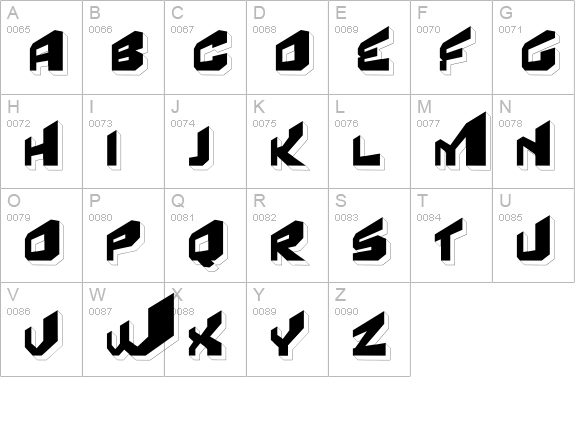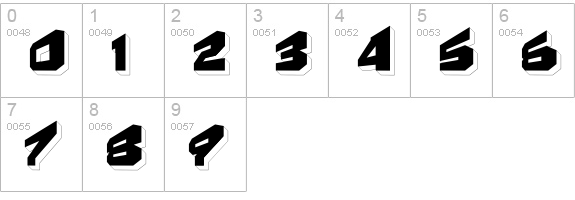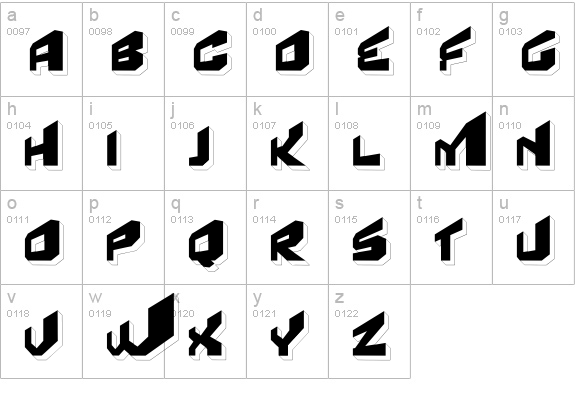
Fear Factor '3D' Font Details
Introducing Fear Factor '3D' font, a bold and dynamic typeface that will make your designs stand out from the crowd. This 3D font exudes a sense of fearlessness and excitement, perfect for projects that require a touch of edginess. The Fear Factor '3D' font is versatile and can be used in a variety of design applications, from posters and flyers to logos and branding materials. Its three-dimensional appearance adds depth and dimension to your text, making it visually striking and captivating. What's even better is that Fear Factor '3D' font is available for free download at FontsMarket.com. So unleash your creativity and incorporate this eye-catching font into your projects to make a bold statement. Get ready to take your designs to the next level with Fear Factor '3D' font.